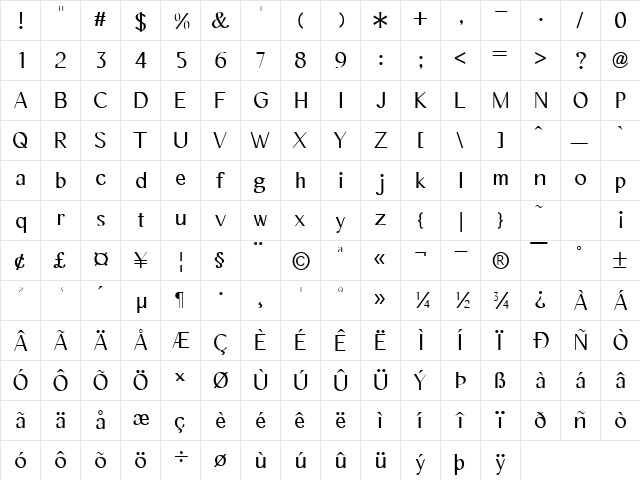
Ballymun RO Normal
| Designer | Ronald B. Ogawa |
Design Context for Ballymun RO Typeface
Ballymun RO offers clean, dependable letterforms without strong stylistic allegiance, making it a practical choice for designers who need flexibility.